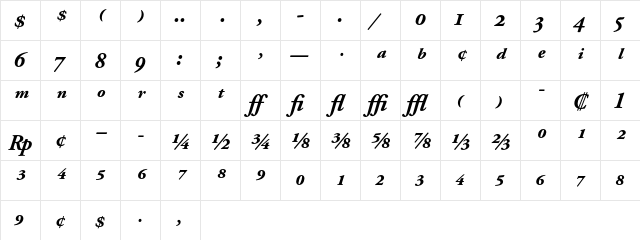
Adobe Garamond Bold Italic Expert
Design Context for Adobe Garamond Typeface
Adobe Garamond takes a measured approach to typography — its balanced proportions and neutral character make it a reliable workhorse for both digital and print work. The dynamic lean of this cut emphasises speed and emphasis in any layout. Its bold stroke weight gives it real presence on the page.
Pro Tip: Use Adobe Garamond for emphasis, pull quotes, and subheadings where its slanted energy can add rhythm to the layout.